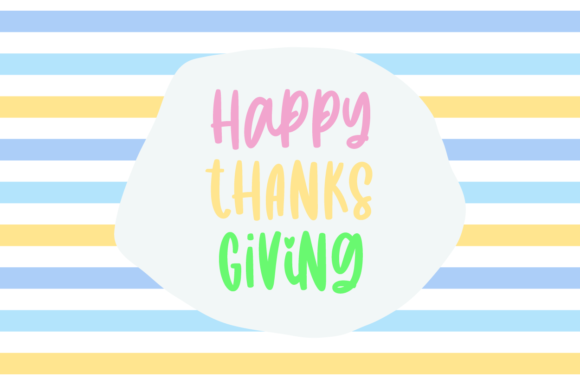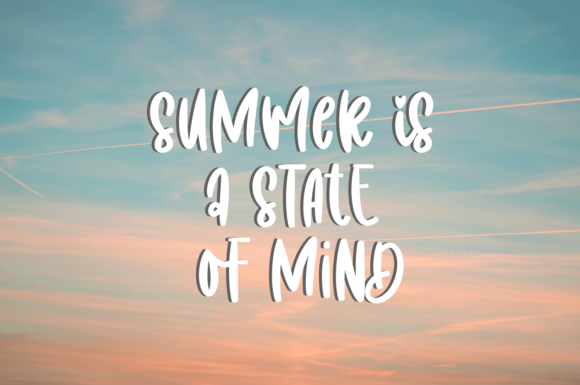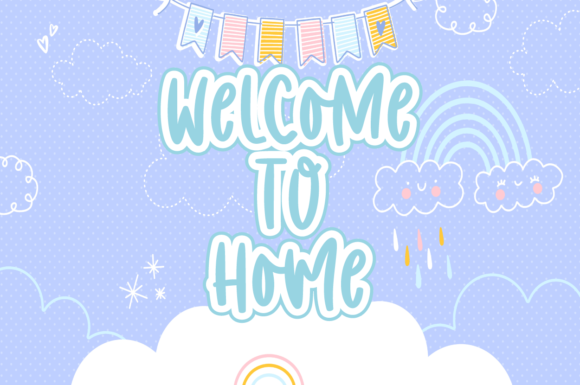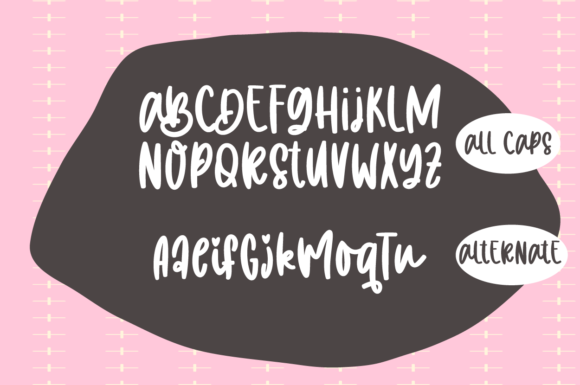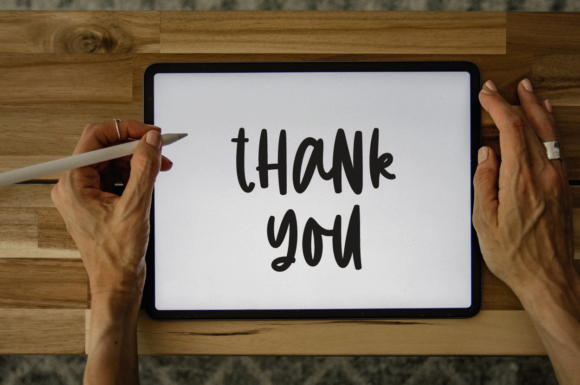
Introduction to Shopia Designer Font Font
Fonts play a crucial role in design, and the Shopia Designer Font font is a typeface that brings both character and versatility to any project. Whether you’re working on a branding project, a website, or a print design, the Shopia Designer Font font offers a unique style that can elevate your work.
Shopia Designer is a quirky and natural handwritten font.
Fall for its ravishing style and use it to create gorgeous wedding invitations, beautiful stationary art, eye-catching social media posts, and much more .
Key Features of Shopia Designer Font Font
Why Choose Shopia Designer Font Font?
The Shopia Designer Font font is more than just a typeface – it’s a design tool that helps you communicate your message with style and clarity. Its unique character set and versatile design make it suitable for a wide range of applications, from elegant invitations to bold headlines.
With its carefully crafted letterforms and balanced proportions, the Shopia Designer Font font ensures readability and visual appeal across all mediums.
What makes Shopia Designer Font font special?
The Shopia Designer Font font stands out with its unique design, exceptional readability, and versatility across various design applications.